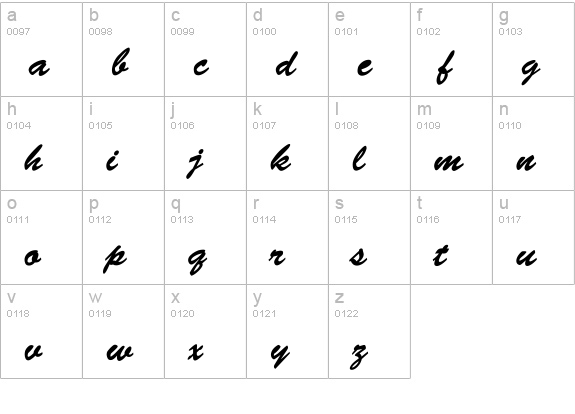
Banff-Normal is the standard, neutral variant in the Banff typeface family \xE2\x80\x94 well suited to general body text, paragraphs, and standard typographic work.
Banff-Normal font is a versatile and elegant typeface that is perfect for various design projects. With its clean lines and modern aesthetic, Banff-Normal font exudes sophistication and professionalism. This font is ideal for branding, advertising, logos, and more. The best part about Banff-Normal font is that it is free to download at FontsMarket.com. This means you can easily access this beautiful font and use it in your projects without any cost. Whether you are a designer, business owner, or enthusiast looking to elevate your designs, Banff-Normal font is a great choice that won't break the bank. Add a touch of class and style to your designs with Banff-Normal font, and make a lasting impression on your audience. Download this font for free today and start creating stunning visuals that stand out from the crowd.